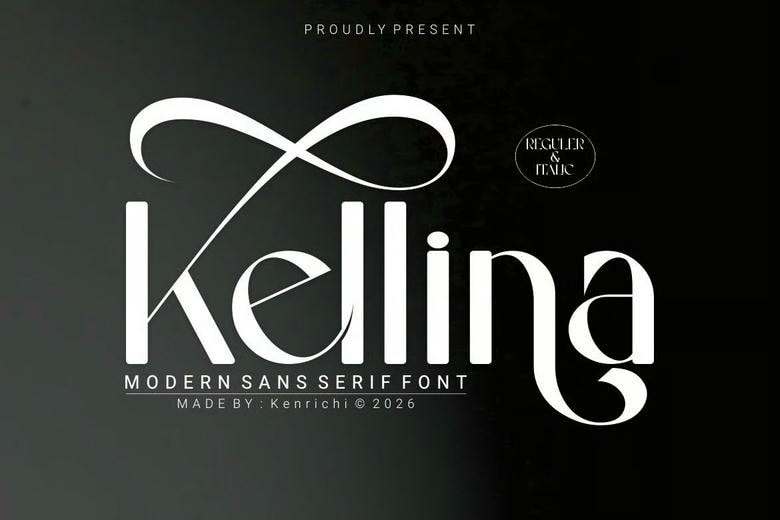
Kellina Font
Kellina stands out using our new sans-serif font. This modern font will definitely turn heads and make a memorable impression with its clean lines and modern appearance. Ideal in headlines, logos, and any other design that requires to be eye-catching. It is functional and stylish and can fit in many designing projects.
Kellina Sans Serif Font